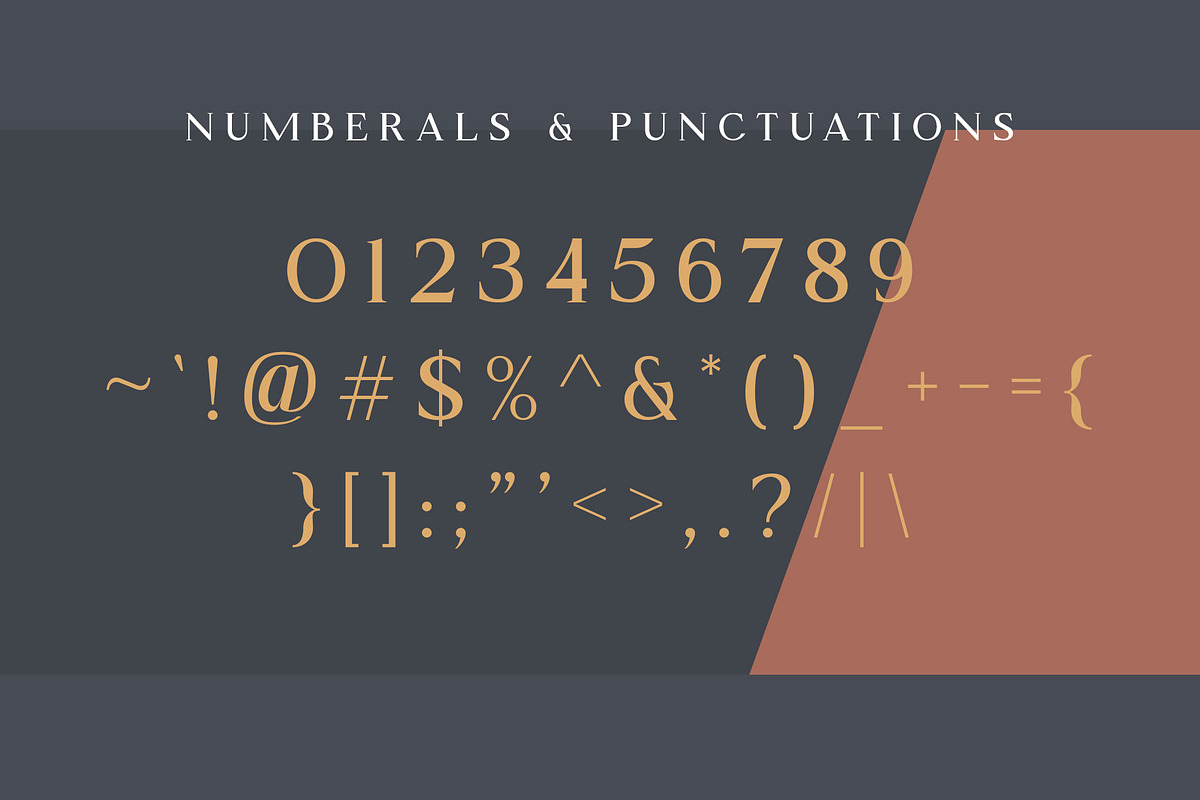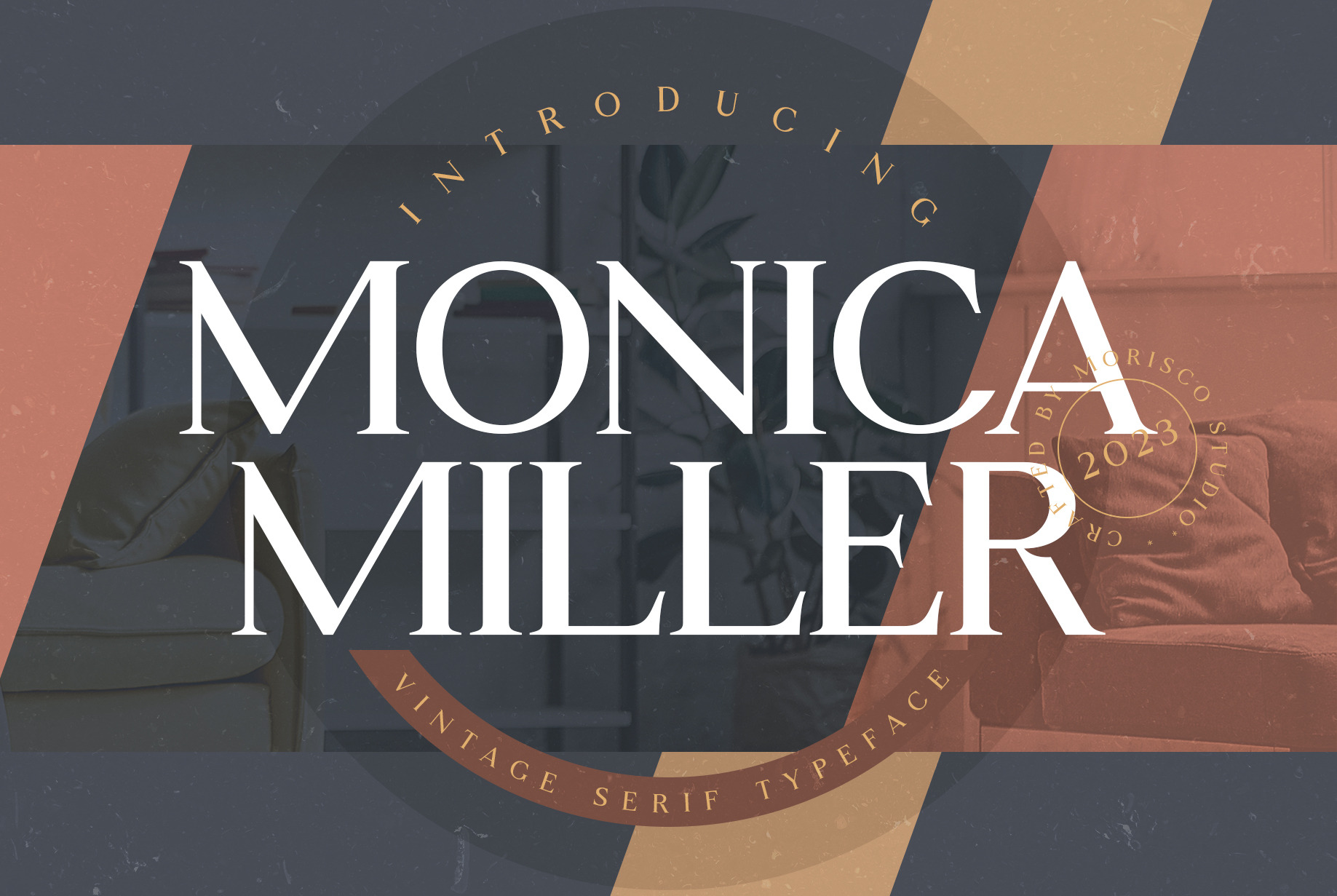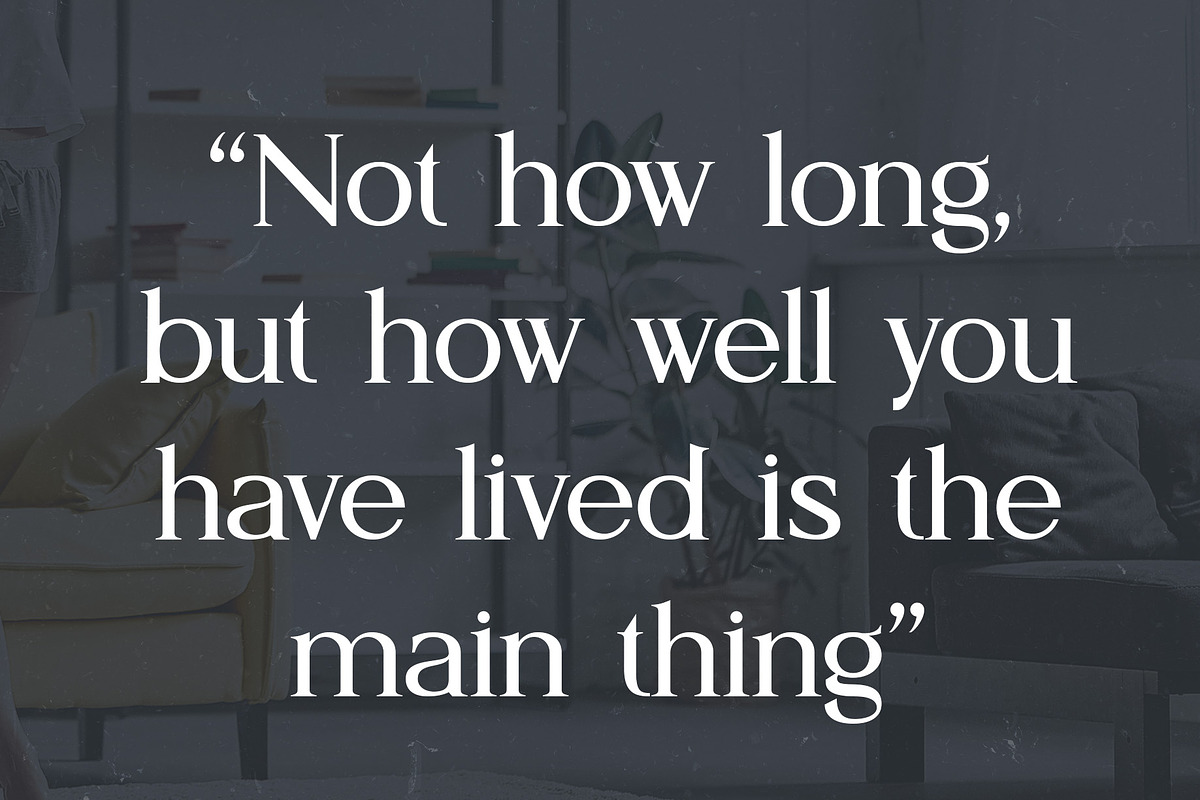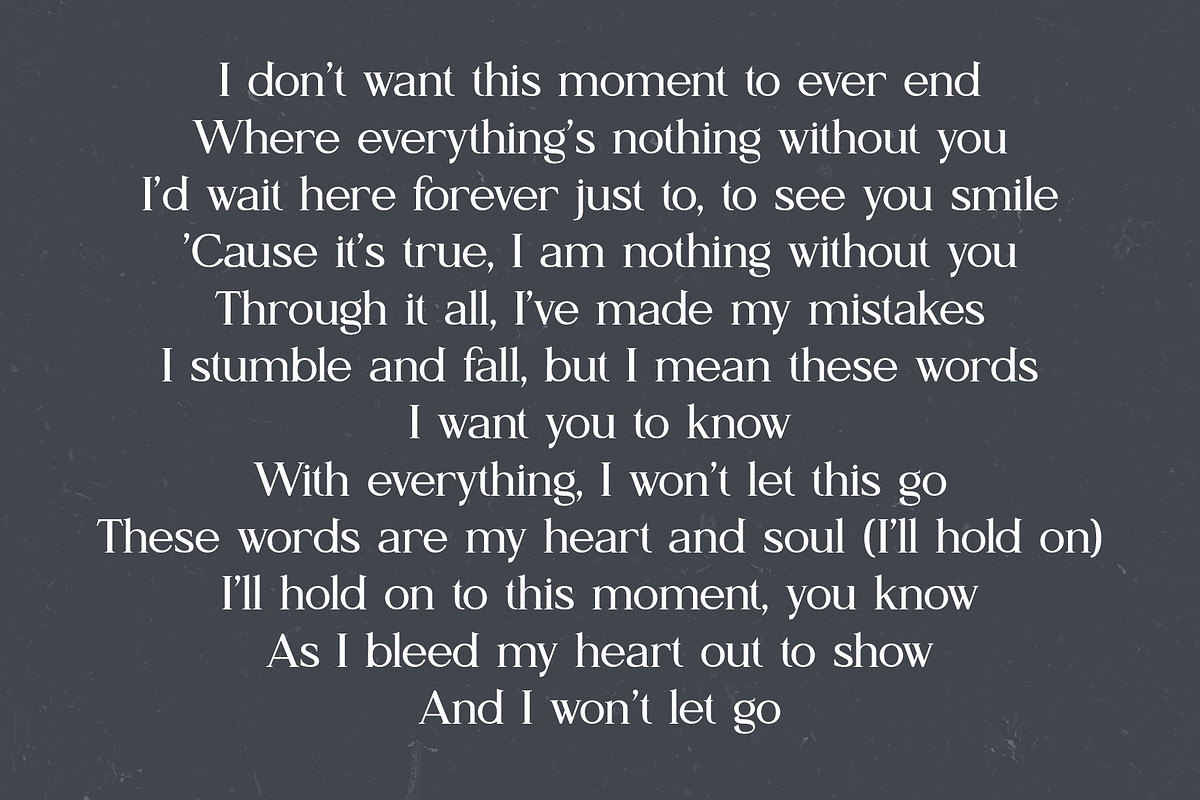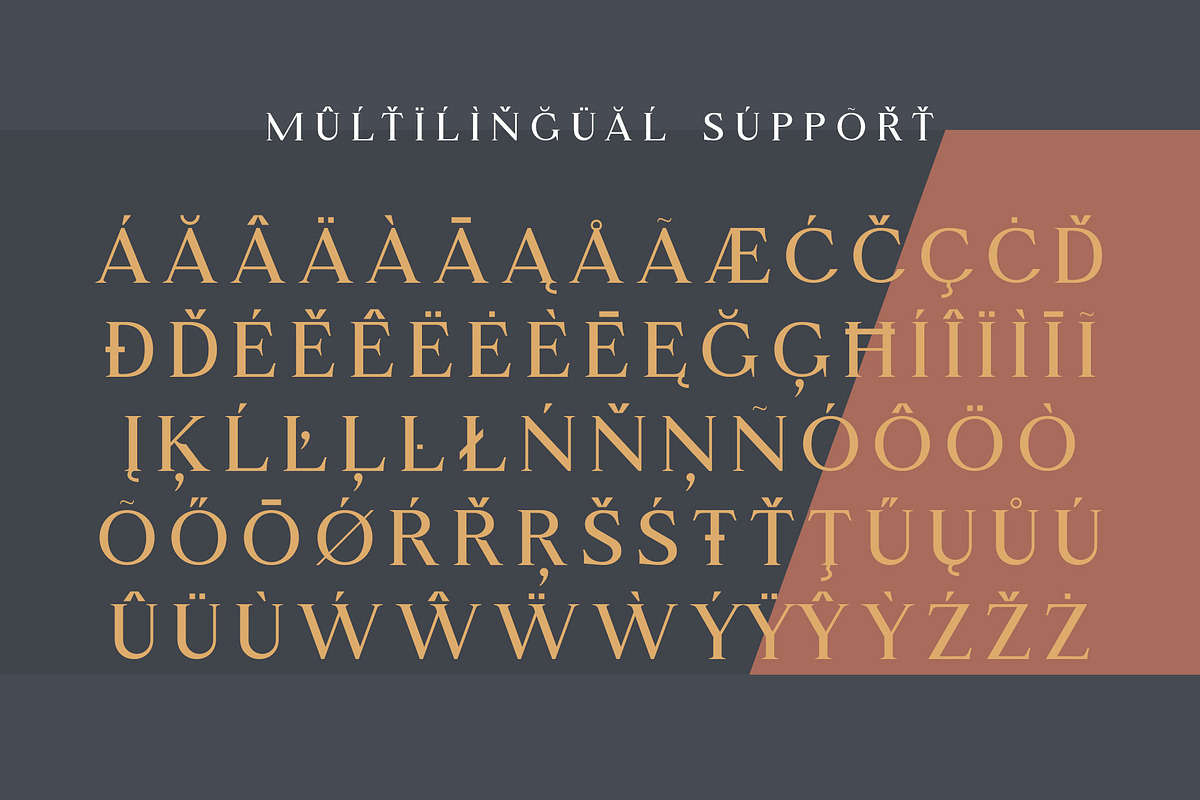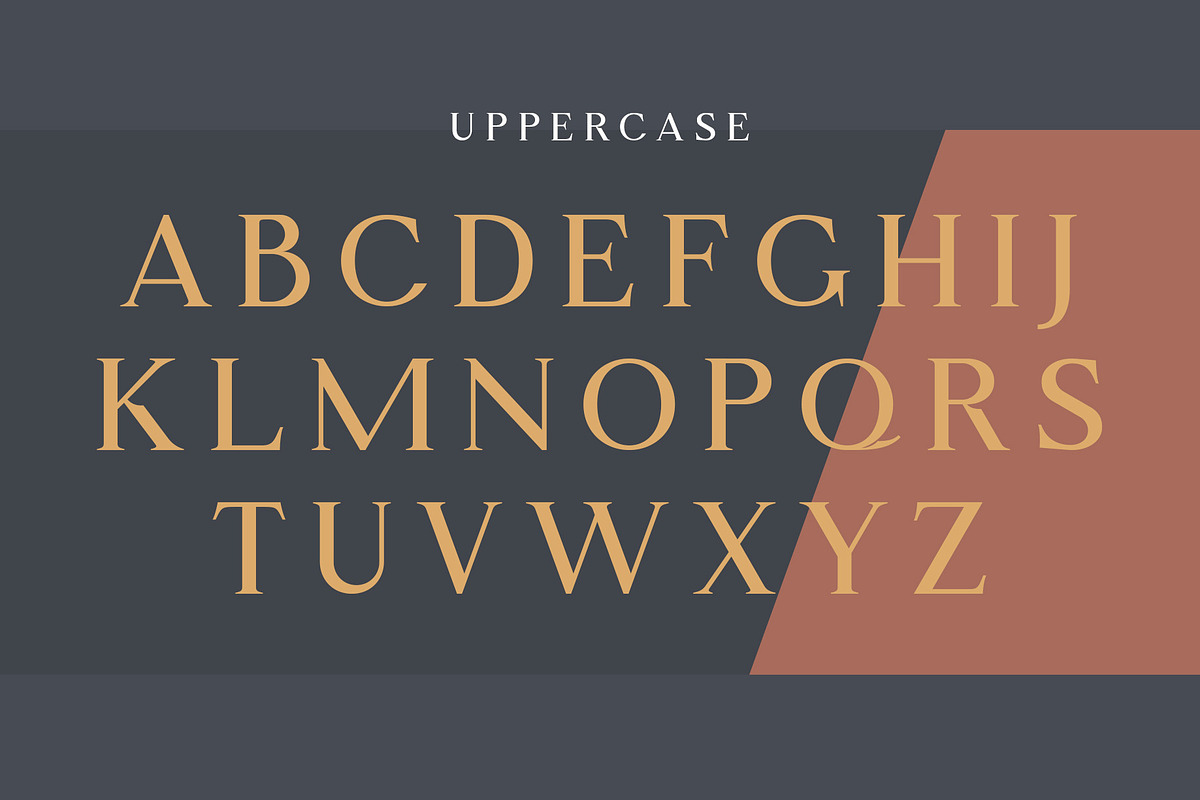
Monica Miller - Serif Typeface
Monica Miller is a Vintage serif typeface with a unique character designed by Morisco Studio. This typeface is well-suited for headlines and any project, like branding, print templates, logos, and more.
- Symbols & Punctuation